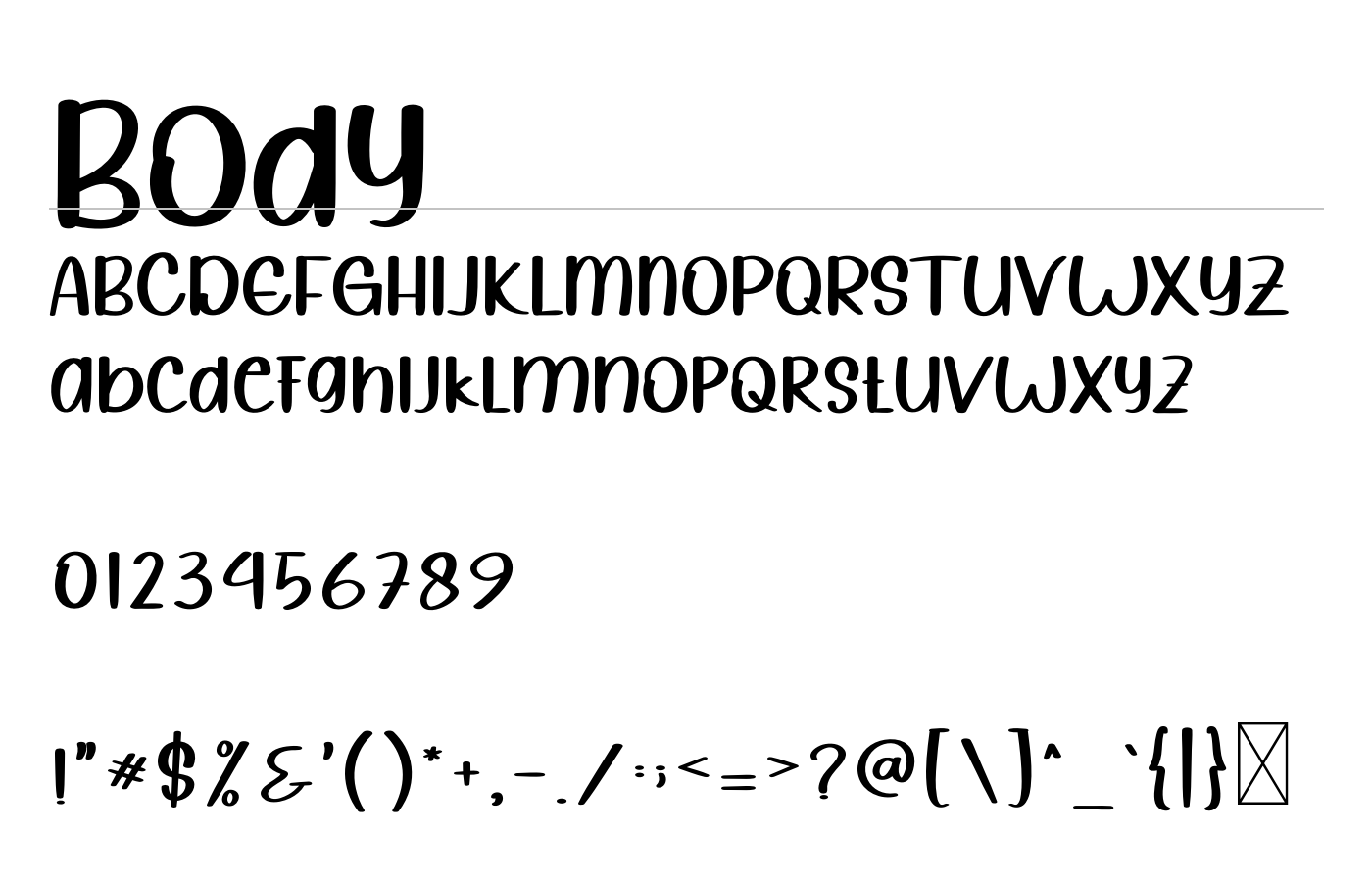
Body Font is a playful and casual handwritten sans serif with a friendly, approachable vibe. Its irregular strokes and slightly condensed letterforms give it a warm, informal feel that works well for creative projects, children’s materials, or branding that aims to be inviting and fun. This font suits headlines, packaging, and any design needing a unique, personal touch without sacrificing readability.
Body Font
About Body Font